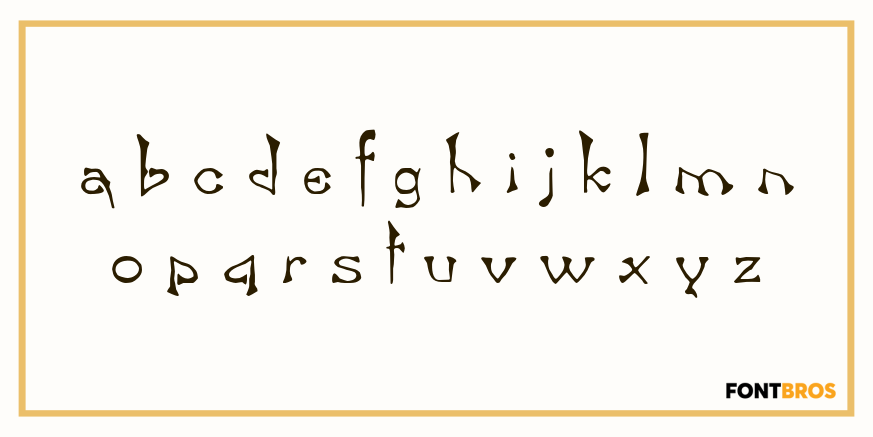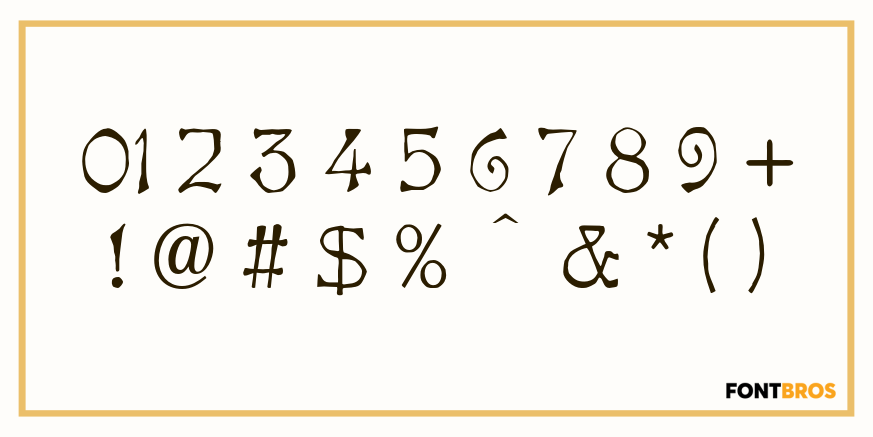
Bamboo
Font Family by Solotype
Even the original founder, Barnhart Bros. & Spindler, thought this was a freaky font, and indeed they called it ?Freak? when they introduced it in 1889.
It was reintroduced in 1925 under the somewhat more elegant name of ?Bamboo,? and is one of the prizes that the collectors of antique metal types seek.